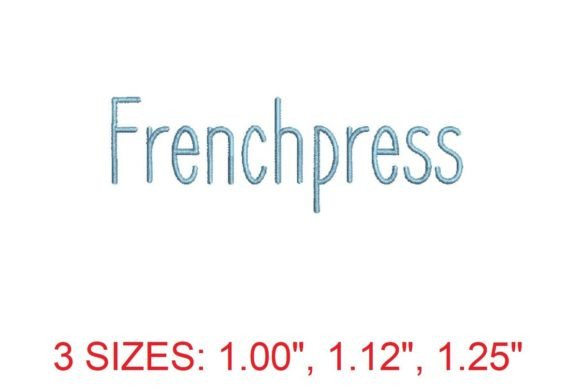
Frenchpress Embroidery Font
Frenchpress Embroidery Font is a stylish and versatile design that brings a touch of elegance to any embroidery project. Whether you're a seasoned enthusiast or just starting out, this font offers a refined aesthetic that's perfect for adding a Parisian flair to your creations. Its clean lines and sophisticated lettering make it ideal for a wide range of applications, from personal projects to professional endeavors.
The Beauty of Frenchpress Embroidery Font
What sets Frenchpress Embroidery Font apart is its ability to blend artistry with functionality. Each letter is meticulously crafted to ensure clarity and readability, making it suitable for both small and large-scale embroidery. The font’s design is inspired by the charm of French typography, offering a timeless appeal that can elevate any textile project.
One of the standout features of this font is its attention to detail. The stitches are carefully arranged to produce a smooth and even appearance, which is crucial for achieving professional results. This level of precision ensures that your embroidered designs look polished and refined, no matter the size or complexity.
Why Choose Frenchpress Embroidery Font?
If you're looking for a font that combines beauty with practicality, Frenchpress Embroidery Font is an excellent choice. It's designed to meet the needs of a variety of users, including hobbyists, professionals, and small business owners. The font's versatility allows it to be used in different contexts, such as monogramming towels, embellishing clothing, or creating home decor items.
For those who value quality and craftsmanship, Frenchpress Embroidery Font delivers on all fronts. Its stitch quality is exceptional, ensuring that each letter looks sharp and well-defined. This makes it a great option for anyone who wants to create eye-catching designs without compromising on detail.
Where Can You Use Frenchpress Embroidery Font?
The applications for Frenchpress Embroidery Font are virtually limitless. Here are some practical examples of how you can incorporate this font into your creative projects:
- Monogramming Towels: Add a personalized touch to bath towels or handkerchiefs with elegant monograms using this font.
- Embellishing Clothing: Use it to add decorative elements to t-shirts, denim jackets, or other apparel items.
- Home Decor: Create custom signs, cushions, or wall hangings with this font to enhance the aesthetic of your living space.
- Business Cards and Stationery: Incorporate the font into branding materials for a sophisticated and memorable look.
Whether you're working on a personal project or a commercial one, Frenchpress Embroidery Font provides the flexibility and style needed to achieve outstanding results.
Embrace the Elegance of Frenchpress Embroidery Font
Frenchpress Embroidery Font is more than just a design—it's a tool for creativity and expression. With its elegant lettering and high-quality stitching, it empowers users to bring their ideas to life with confidence and style. Whether you're crafting for personal use or as part of a business, this font offers the versatility and sophistication needed to create stunning results.
Indulge in the exquisite charm of Frenchpress Embroidery Font and discover how it can transform your embroidery projects. From simple monograms to intricate designs, this font is a must-have for anyone who appreciates the art of embroidery.